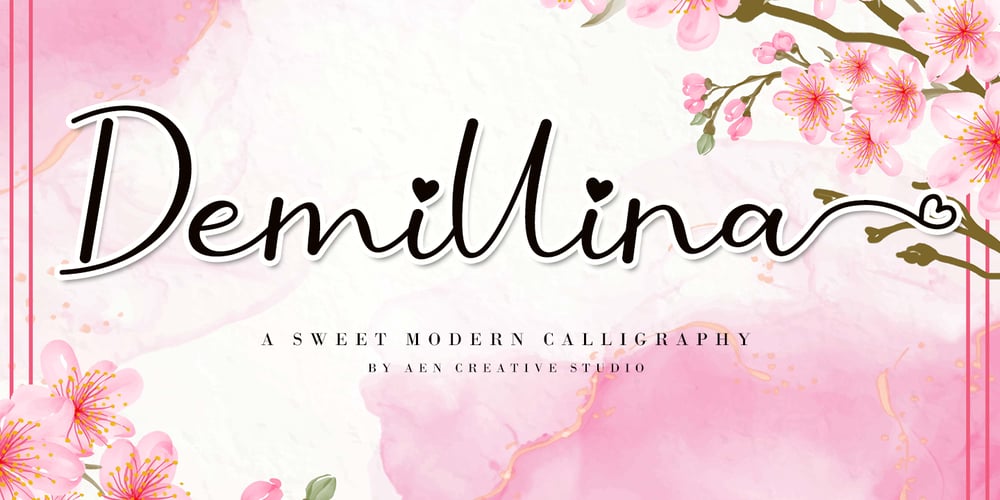
Demillina Font Family was designed by Agung Eko Nugroho and published by AEN Creative Studio. Demillina contains 2 styles and family package options. Demillina is a lovely and delicate script font that exudes elegance and class. This font was particularly crafted for those who need a beautiful and refreshing look to their designs.Demillina is PUA encoded which means you can access all of the glyphs and swashes with ease!